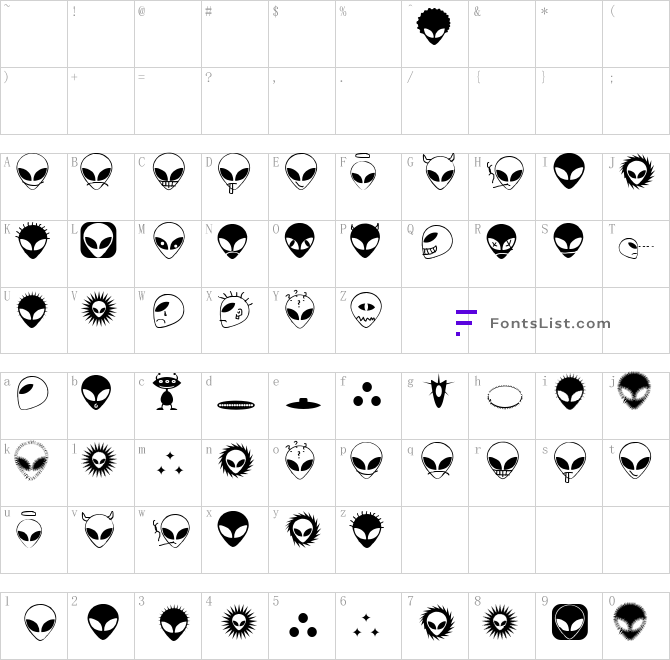
- Font Name:Alienator
Alienator.ttf is a very beautiful artistic font, Alienator.ttf is widely used in the design and printing of various books and pictures,Alienator.ttf has a strong visual impact,Alienator.ttf is a commonly used font in newspapers, magazines and books, and is used in posters, e-commerce Poster design, store design, logo design, font design and other fields.Alienator.